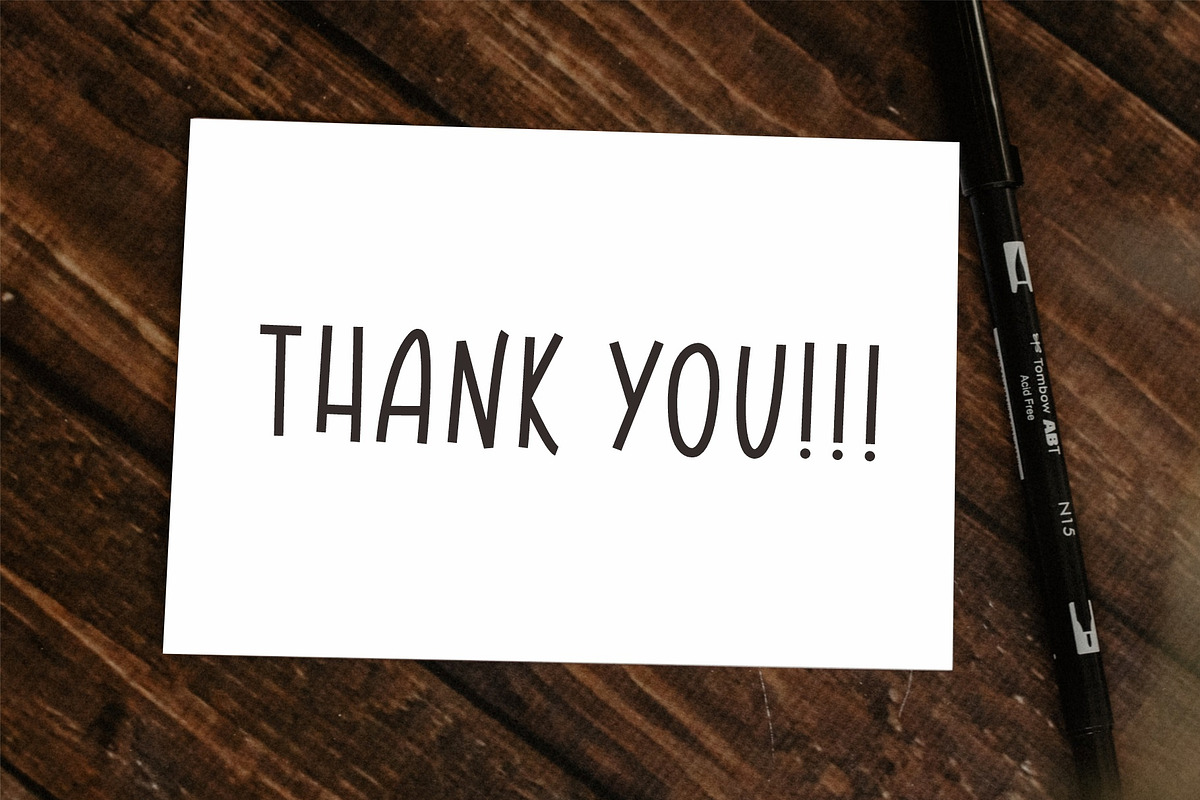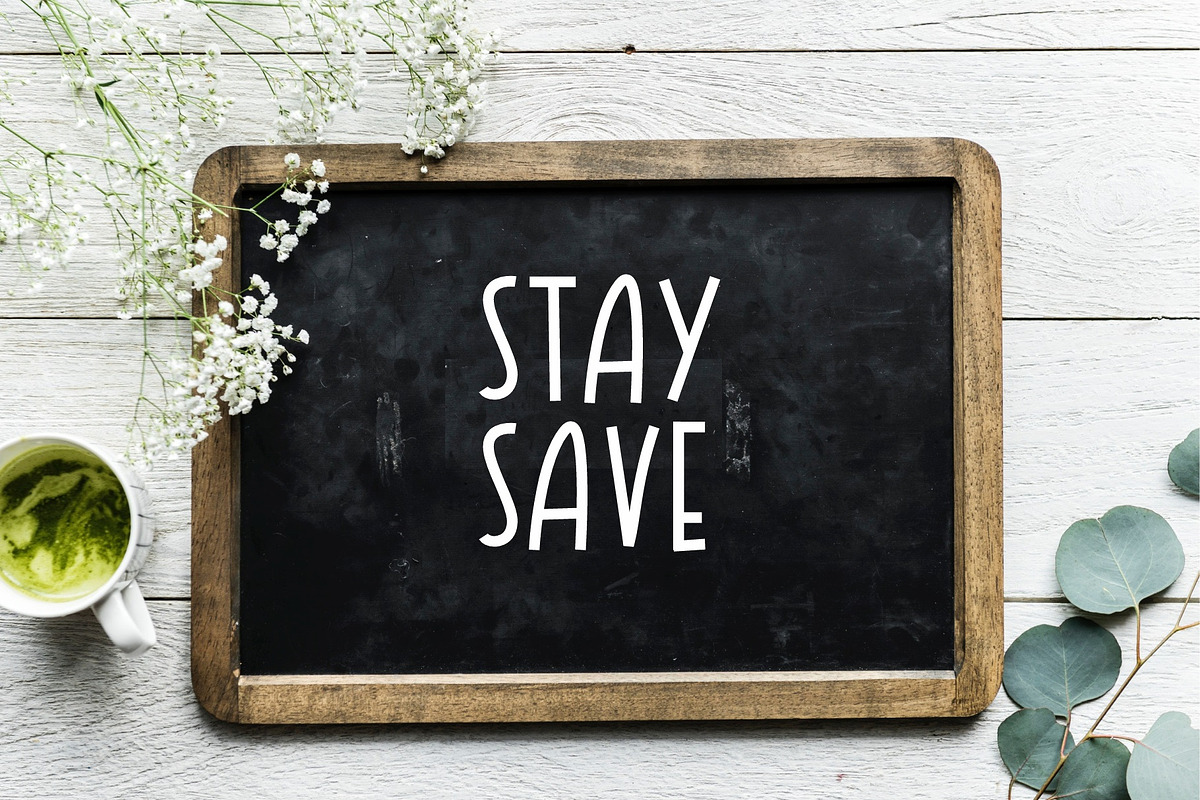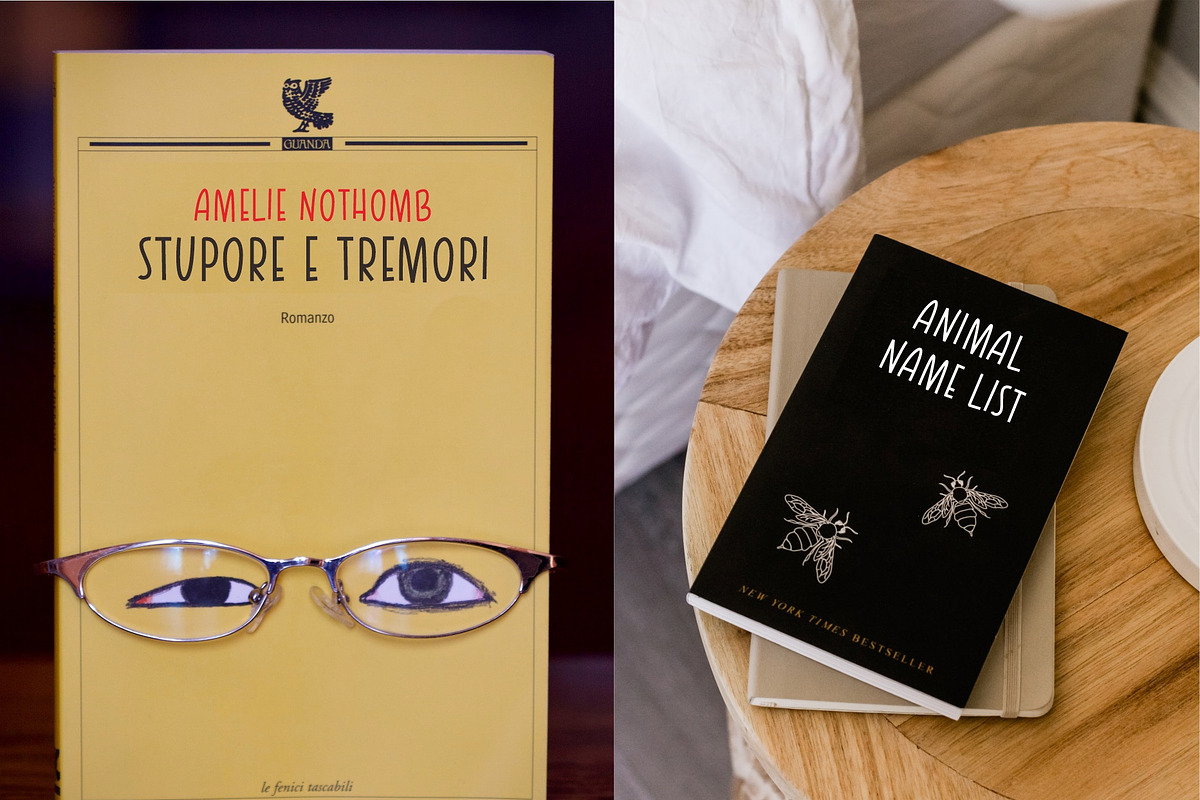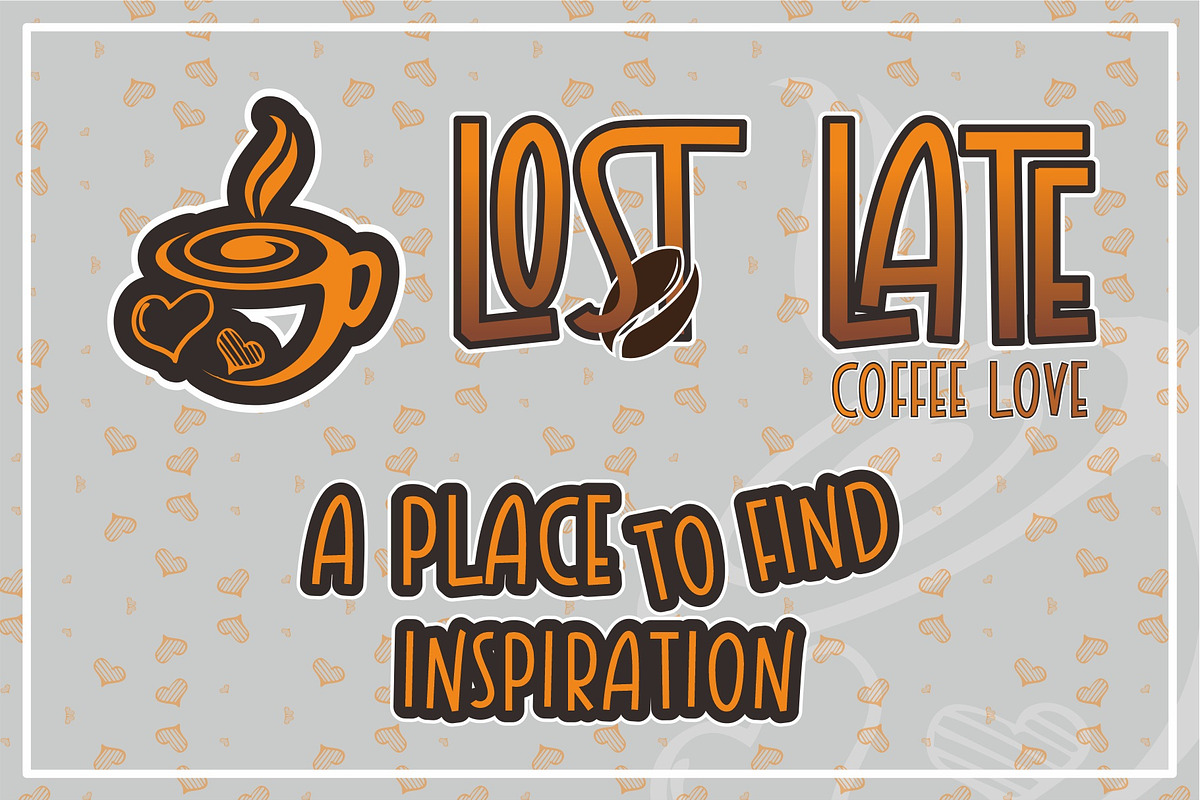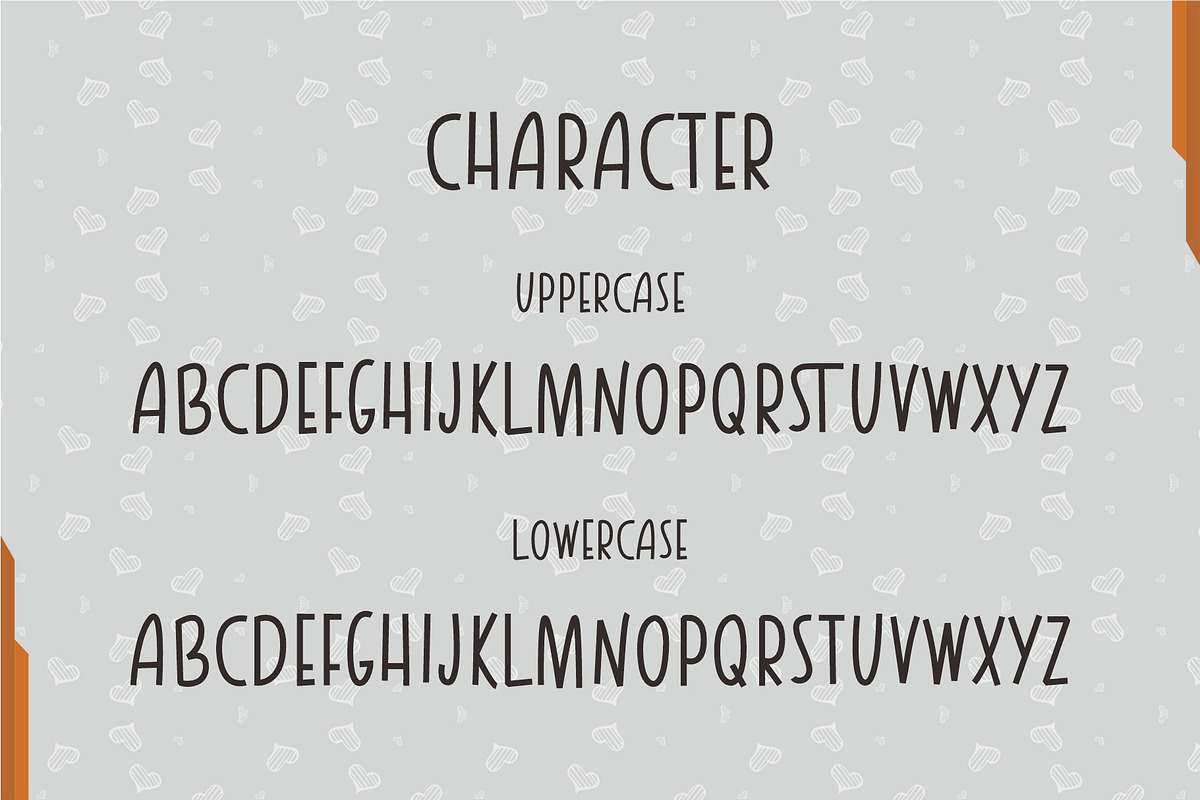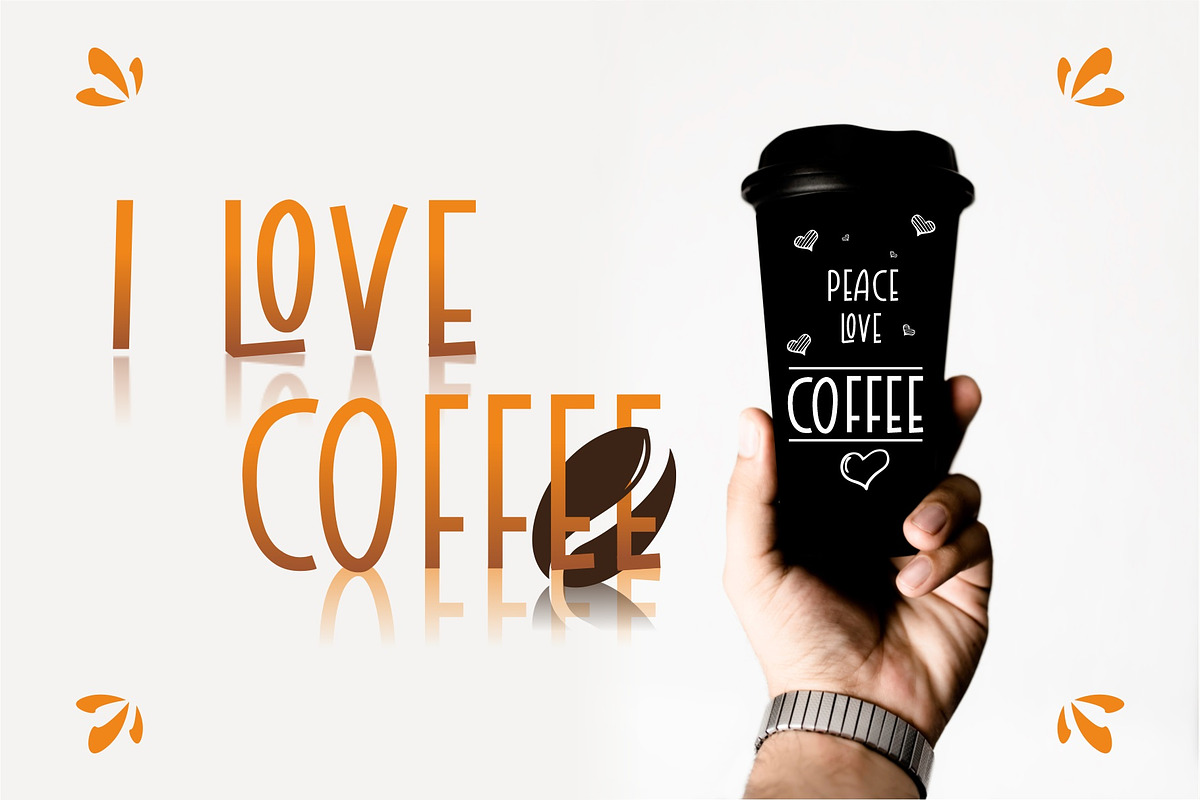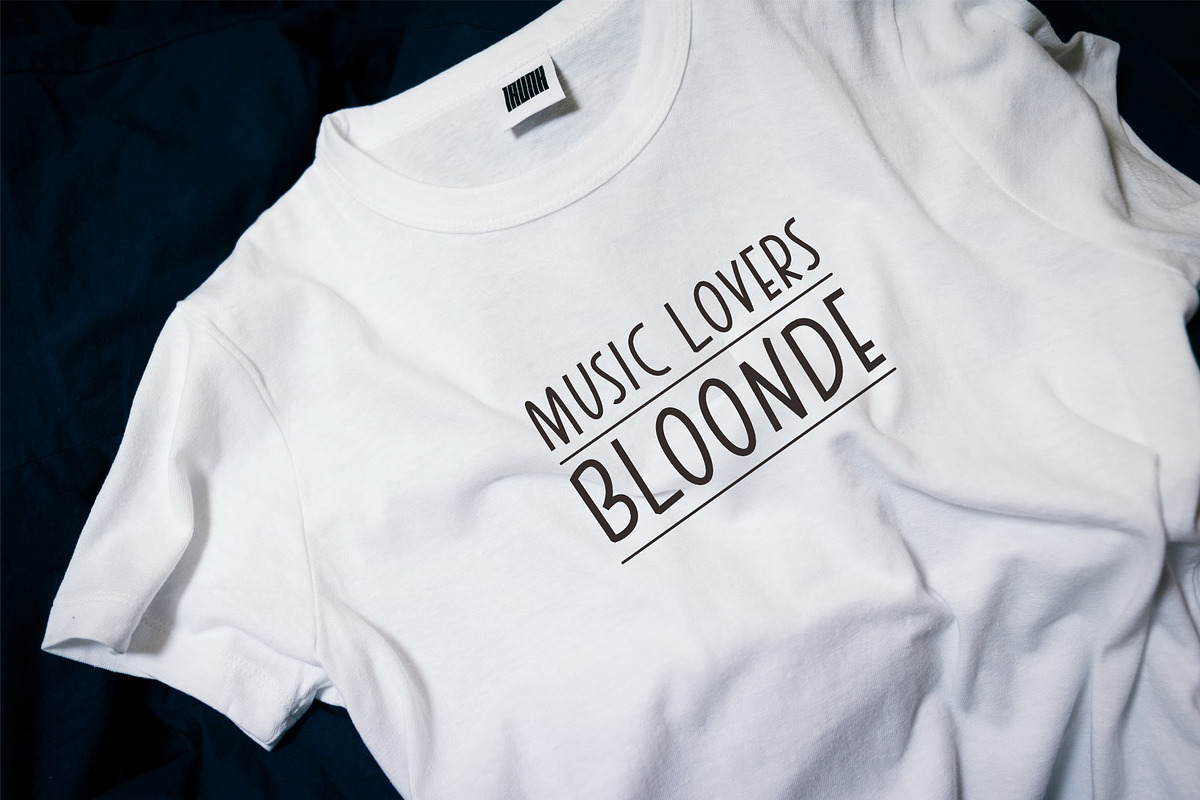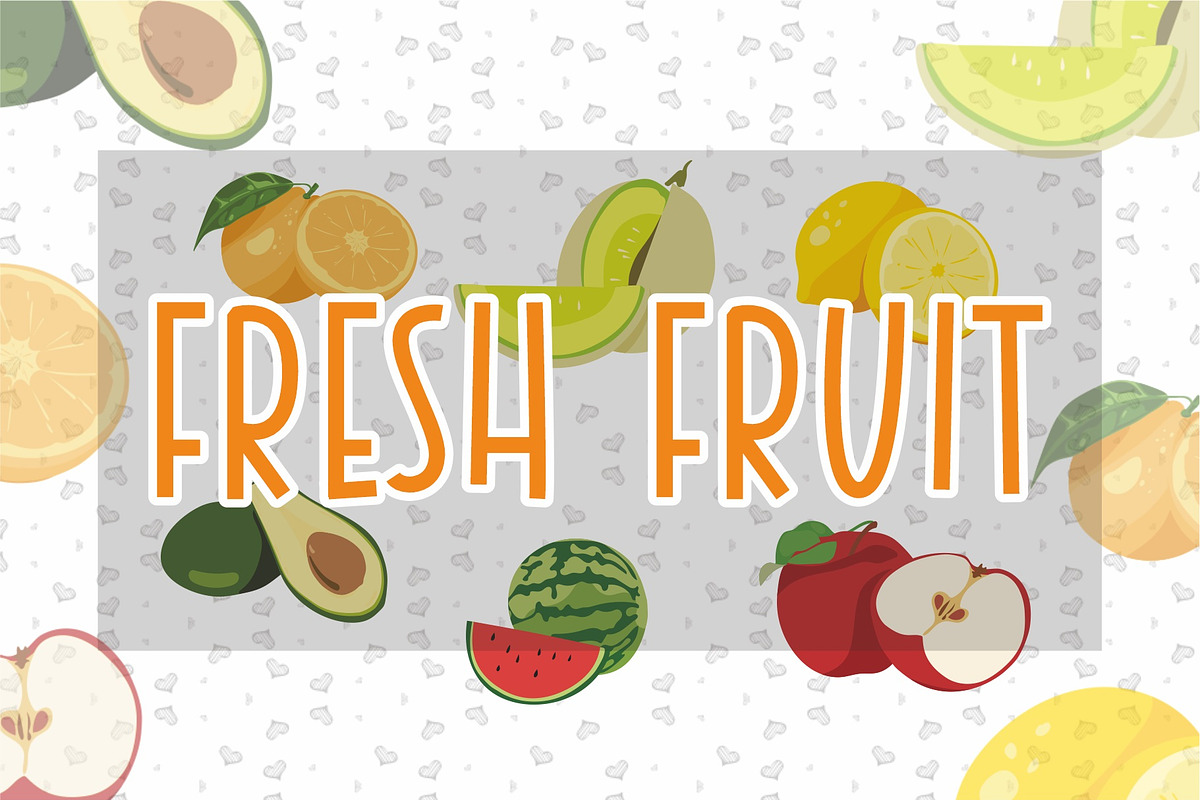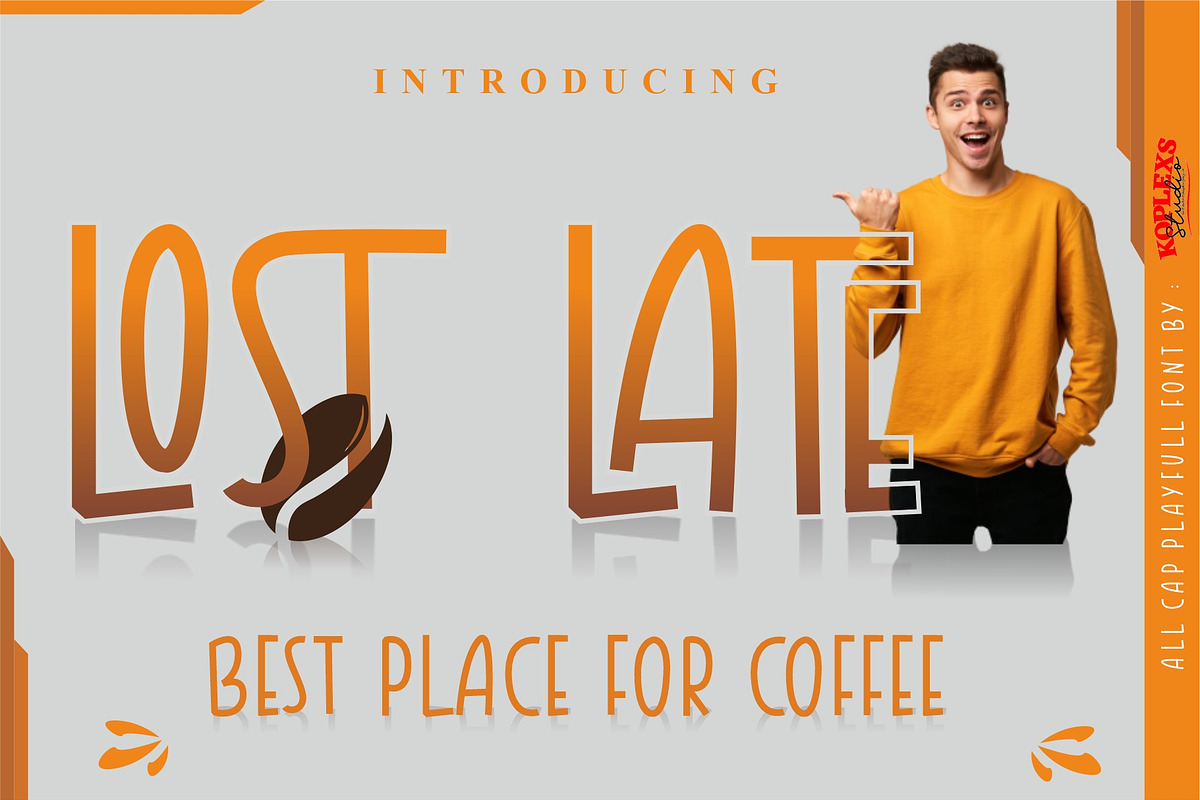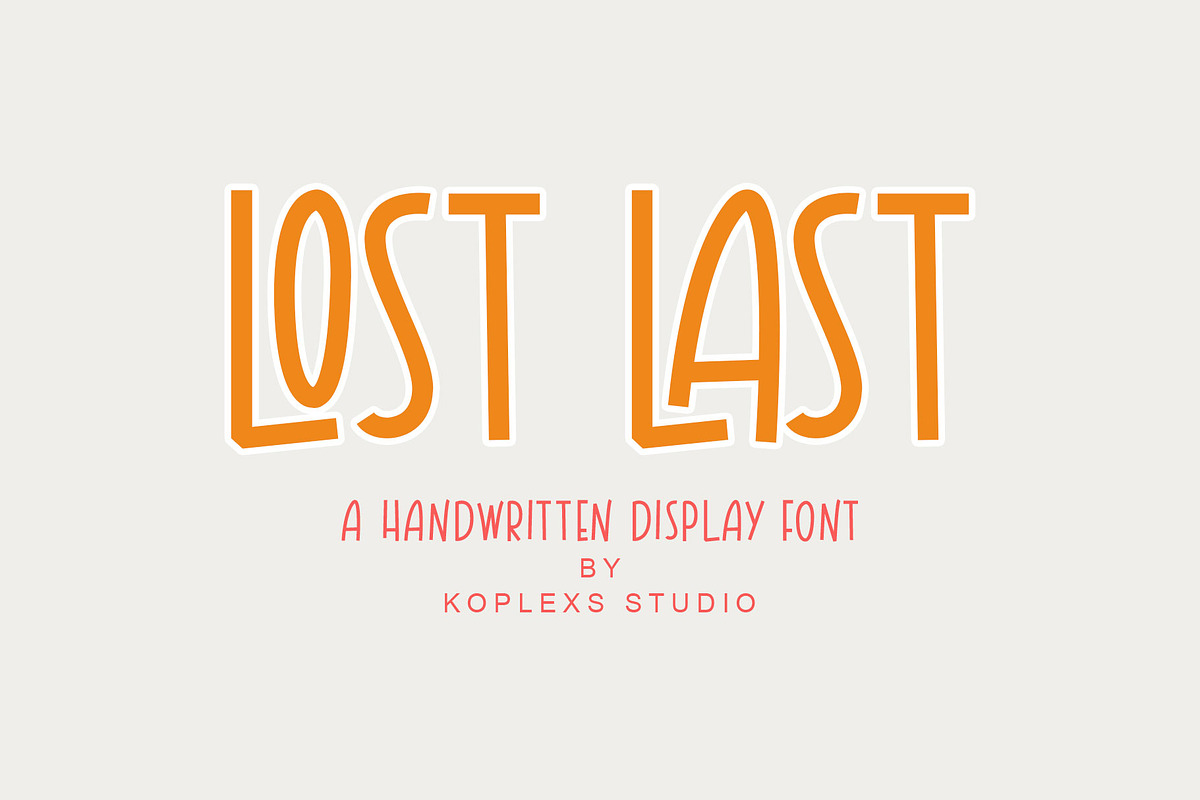
LOST LATE
Lost Last is a modern handwritten font that is made to bring out the happy, light-hearted character, inspired by the carefree nature of kids!
Lost Last is perfect for branding projects, logo, wedding designs, social media posts, advertisements, product packaging, product designs, label, photography, watermark, invitation, stationery and any projects that need handwriting taste,design & craft projects, i.e. quotes, home decor,wedding invites, blog header, branding, t-shirts, posters & more!